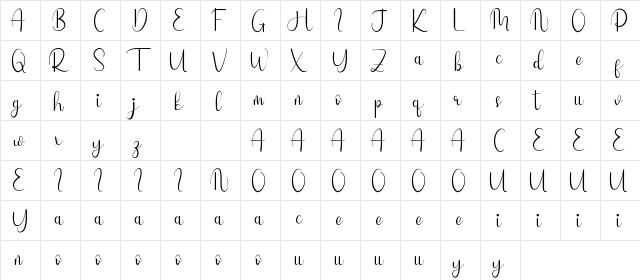
Undertones Demo Regular
Design Context for Undertones Demo Typeface
Undertones Demo is a composed and adaptable typeface that performs quietly and consistently across a wide range of design contexts.